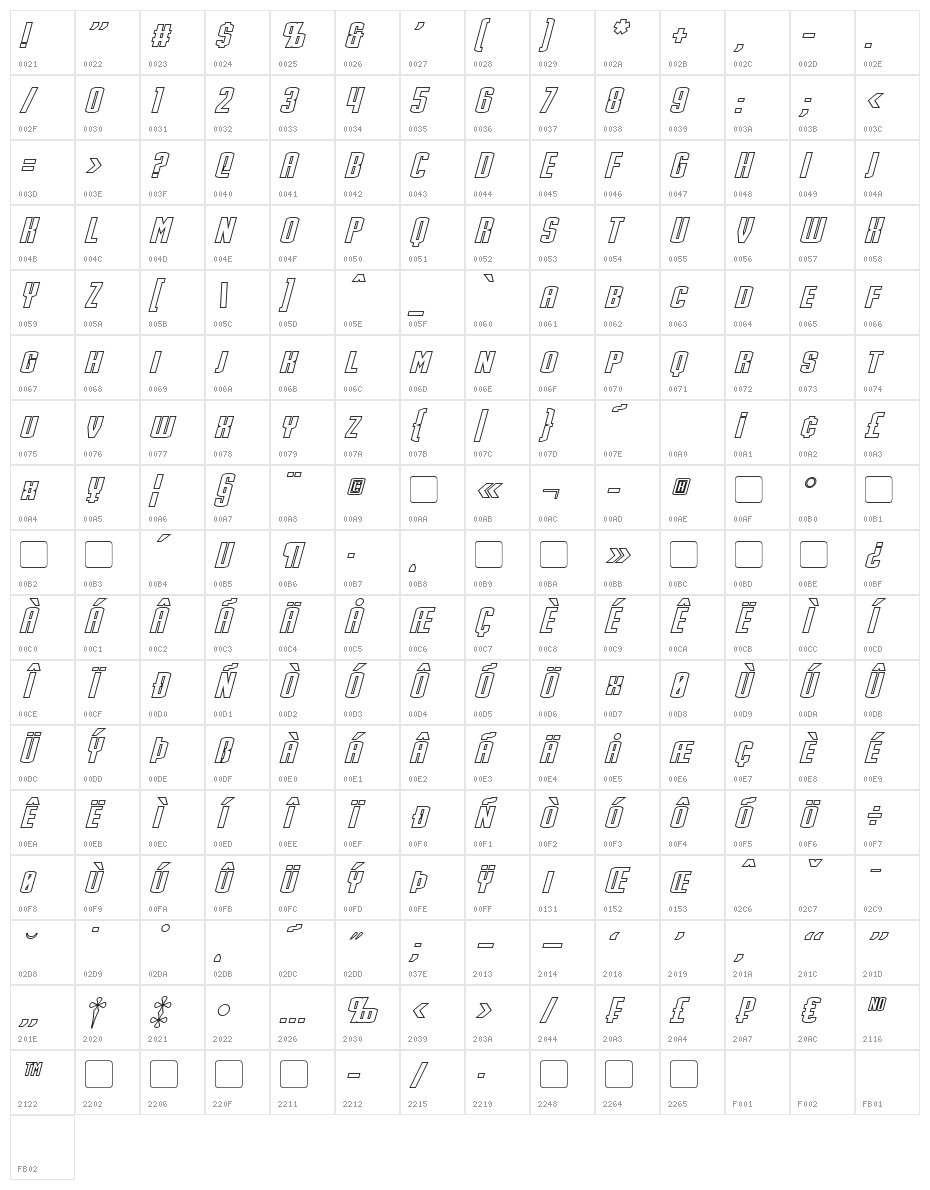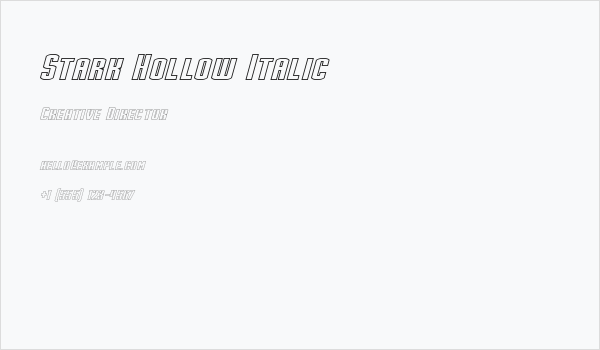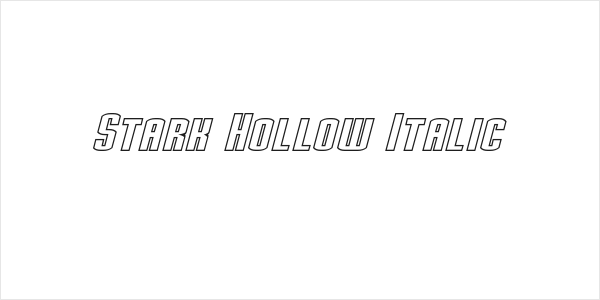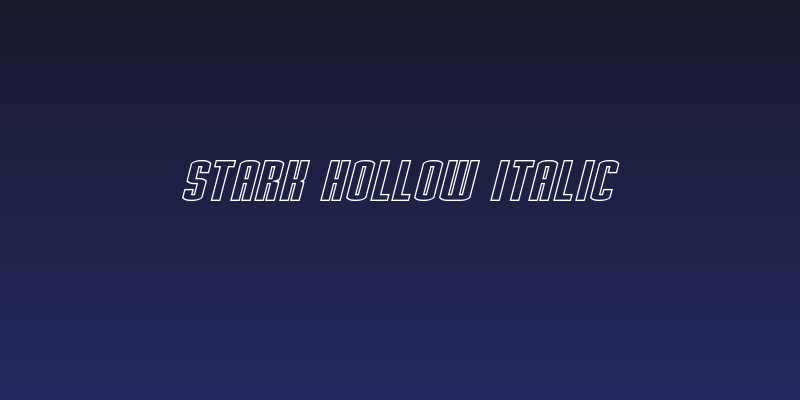
Stark Hollow Italic Font
Stark Hollow Italic Description
This font features a bold, hollow design with an italic slant, giving it a dynamic and modern appearance. The characters are outlined, creating a striking visual effect that is both bold and airy. The uppercase and lowercase letters maintain a consistent style, with sharp angles and clean lines that enhance readability while adding a touch of sophistication. The numbers and special characters follow the same design principles, ensuring a cohesive look across all text elements. This font is ideal for projects that require a strong visual impact, such as headlines, posters, and branding materials.
| Proposed Projects | Ideal for headlines, posters, branding, and any project needing a strong visual impact. |